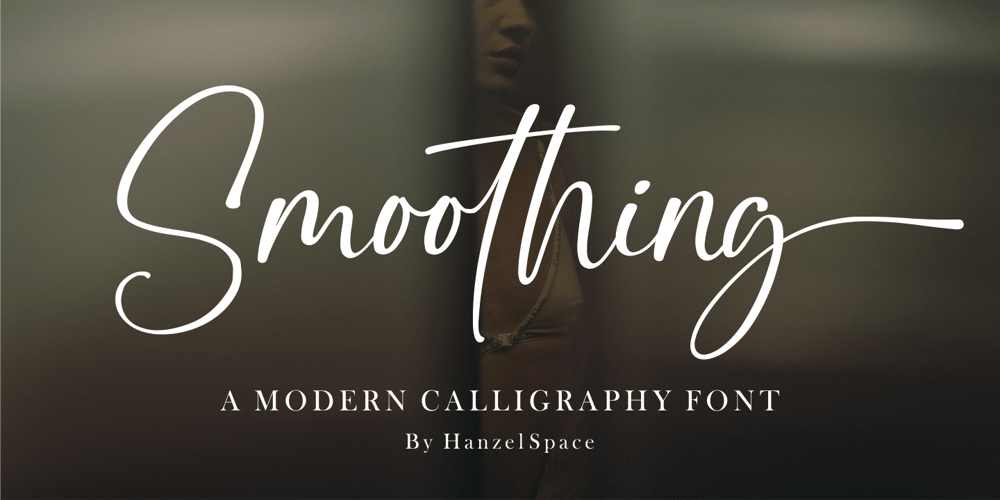
Smoothing
Smoothing font
Smoothing Font Family was designed by Hanief Farandi and published by Hanzel Space. Smoothing contains 1 styles and family package options. Smoothing is a stylish modern calligraphic font in an original handwriting style. It’s perfect for branding, wedding invitations and cards, and maybe for red wine labels.Smoothing includes a full set of beautiful upper and lower case letters, numbers, a wide variety of punctuation marks and 46 ligatures. All lowercase letters include initial and final strokes, giving a realistic handwritten style. What did you get, honey? Full Set of standard alphabet and punctuation Extra set of ending swashed lowercase Handwritten ligatures Thanks so much for checking out my shop!Happy creating!Cheers!Hanief – Hanzel Space